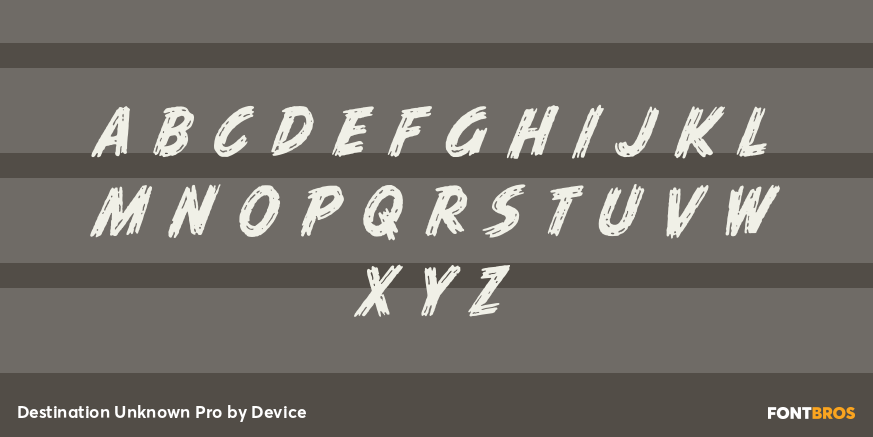
Destination Unknown Pro
Font Family by Device
Destination Unknown Pro is a single-style display script from Device with a distressed, retro look that channels vintage signage and mid-century travel ephemera. Its casual lettering and worn texture give it an easygoing, timeworn character that feels expressive rather than polished.
With tags pointing to Art Deco, retro, and decades spanning the 1920s through the 1960s, this face is well suited to poster work, nostalgic branding, packaging, and other decorative display settings where a weathered period feel matters. It’s a strong choice when you want script lettering that feels cinematic, collected, and slightly off the beaten path.